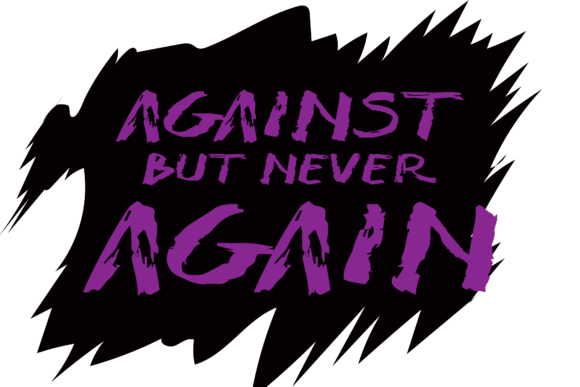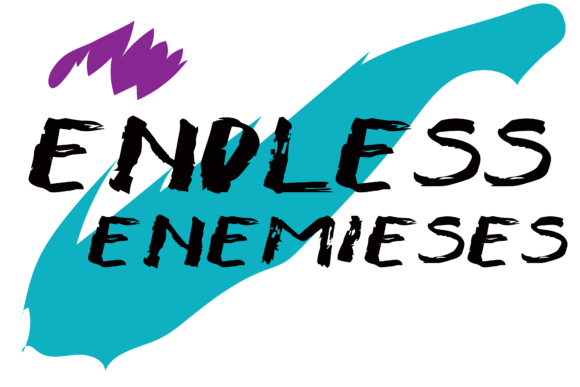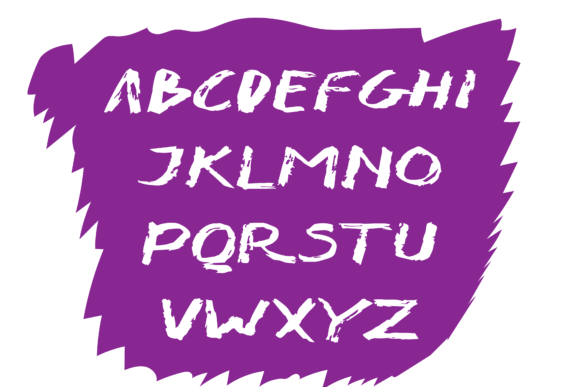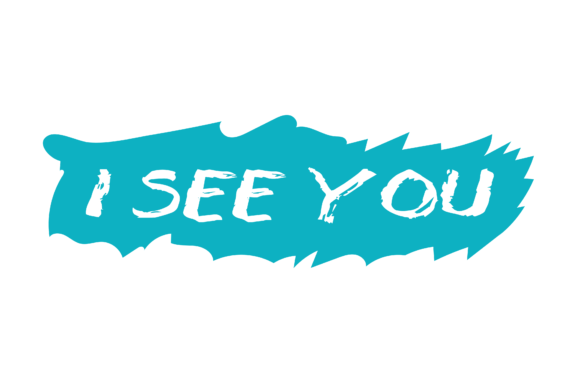
Introducing GOTW Font: The Perfect Brush Font for Your Creative Projects
Are you looking for a unique and creative font to elevate your design projects? Look no further than GOTW Font, a beautifully crafted brush font that is perfect for a variety of applications. In this article, we’ll take a closer look at the features and benefits of GOTW Font, and explore how it can be used to add a personal touch to your branding, headlines, album covers, movie covers, storybooks, and social media posts.
What is GOTW Font?
GOTW Font is a brush font that has been carefully created by hand to give it a distinctive, organic feel. The font’s unique texture and imperfections make it perfect for designers and crafters who want to add a touch of personality to their work. Whether you’re looking for a font that is playful and whimsical or bold and expressive, GOTW Font is sure to impress.
Key Features of GOTW Font
- Hand-crafted by artists: GOTW Font is created by hand, giving it a unique and authentic feel that sets it apart from other fonts.
- Brush font style: The font’s brush style gives it a bold and expressive look that is perfect for making a statement.
- Cool and modern design: GOTW Font has a modern and trendy design that is sure to appeal to designers and crafters who want to create something fresh and exciting.
- Multipurpose: GOTW Font can be used for a wide range of projects, from branding and headlines to album covers and social media posts.
Uses for GOTW Font
GOTW Font is a versatile font that can be used for a variety of creative projects. Here are some ideas to get you started:
- Branding: Use GOTW Font to create a unique and memorable brand identity that sets your business apart from the competition.
- Headlines: Add a touch of personality to your headlines with GOTW Font, which is perfect for creating bold and eye-catching titles.
- Album Covers: GOTW Font is perfect for creating album covers that are bold, expressive, and eye-catching.
- Movie Covers: Use GOTW Font to create movie covers that are dramatic, attention-grabbing, and memorable.
- Story Books: GOTW Font is a great choice for storybooks, adding a touch of whimsy and personality to your illustrations and text.
- Social Media Posts: Use GOTW Font to create social media posts that are bold, colorful, and engaging.
Why Choose GOTW Font?
There are many fonts to choose from, but GOTW Font stands out from the crowd for several reasons:
- Unique and authentic: GOTW Font is created by hand, giving it a unique and authentic feel that sets it apart from other fonts.
- High-quality design: The font is designed with high-quality and precision, ensuring that it looks great in any context.
- Multipurpose: GOTW Font can be used for a wide range of projects, making it a great investment for designers and crafters who want a font that can do it all.
GOTW Font is a beautiful and versatile brush font that is perfect for designers and crafters who want to add a touch of personality to their creative projects. With its unique and authentic feel, high-quality design, and multipurpose uses, GOTW Font is a great choice for anyone looking for a font that can help them stand out from the crowd. Whether you’re working on a branding project, creating a headline, or designing an album cover, GOTW Font is sure to impress.